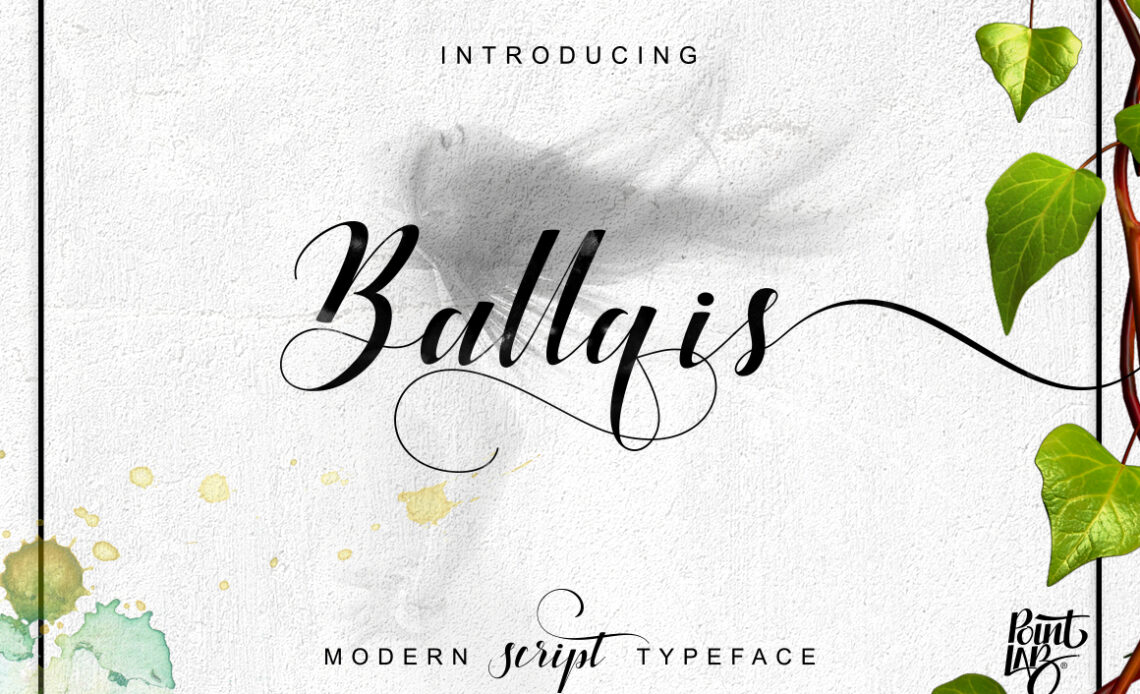
Step into the realm of refined elegance with Ballqis Font, a breathtaking script font crafted by PointLab, the masters of typographic artistry. Ballqis, a font of unmatched beauty and versatility, boasts over 1100 glyphs, each meticulously designed to evoke a sense of grace and sophistication.
With its sweeping curves and flowing lines, Ballqis dances across the page like a ballerina, adding a touch of enchantment to your creative endeavors. Its decorative characters and playful baseline transform ordinary words into captivating works of art, sure to leave a lasting impression on your audience.
Unleash your inner artist and let Ballqis guide you to typographic greatness. Whether you're designing logos, invitations, posters, or social media graphics, Ballqis will elevate your designs to new heights of sophistication and allure.
Immerse yourself in the world of Ballqis and discover a font that is both timeless and contemporary, classic and modern. Its versatility knows no bounds, adapting seamlessly to a myriad of design styles and genres. From elegant wedding invitations to eye-catching social media posts, Ballqis will add a touch of magic to every project you undertake.
Join the ranks of discerning designers who recognize the transformative power of Ballqis Font. Embrace the beauty of refined typography and let your creativity flourish. Ballqis is more than just a font; it's an experience that will redefine your design journey.